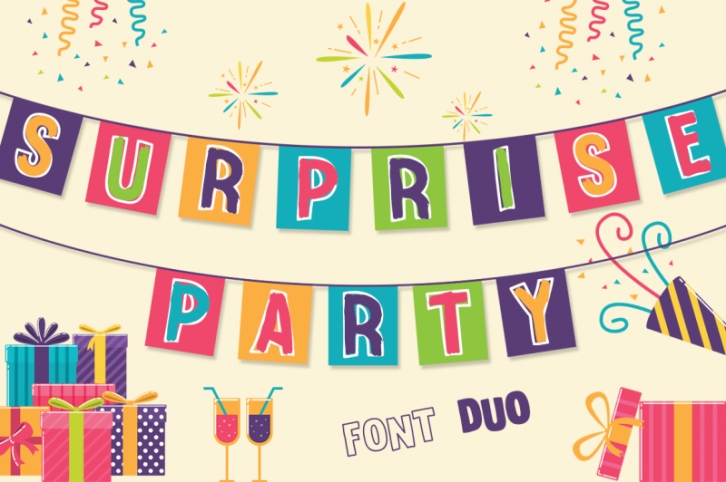
If you had seen my fonts before, you know that I like creating playful fonts. This font is no different.
It is a handcrafted font created from scratch, using as little points as possible to ensure you get the best results with minimum difficulty.
- Surprise Party Line
- Surprise Party Fill
- Surprise Party Brush